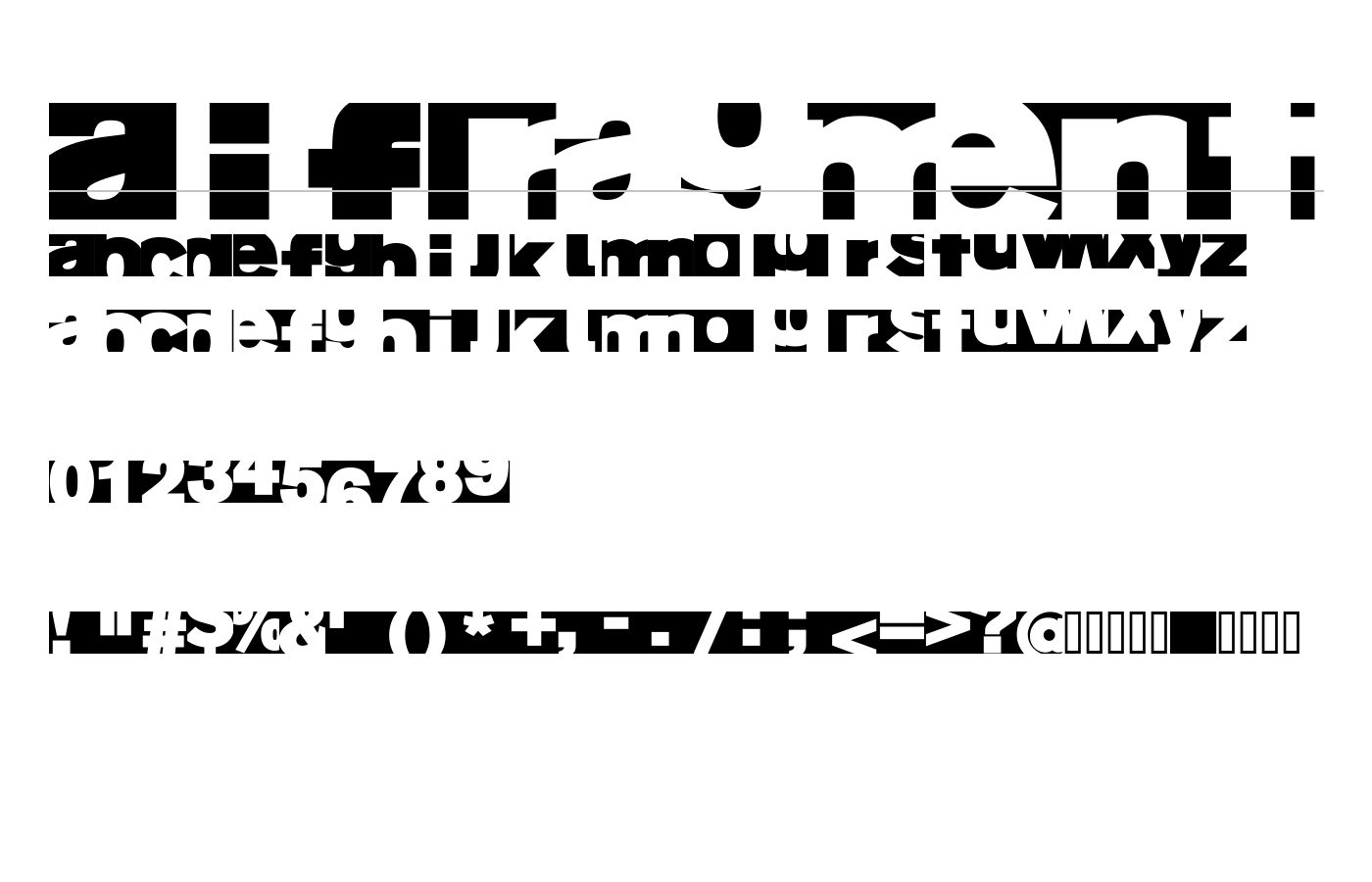
AIFragment is a bold, condensed sans-serif font with a unique fragmented design that breaks letters into segmented shapes, creating a modern and edgy look. Its sturdy weight and tight spacing give it a strong visual impact, making it ideal for striking headlines, logos, and contemporary branding that seeks to stand out with an avant-garde, tech-inspired style.
AIFragment Font
About AIFragment Font